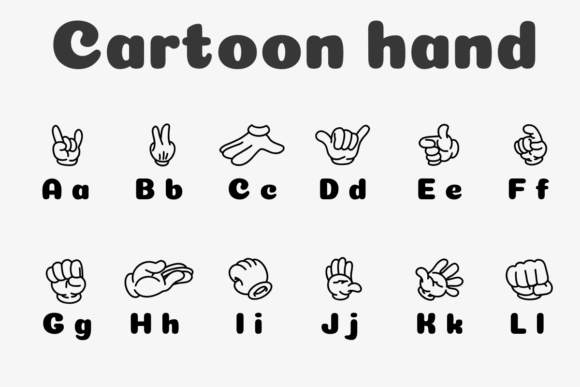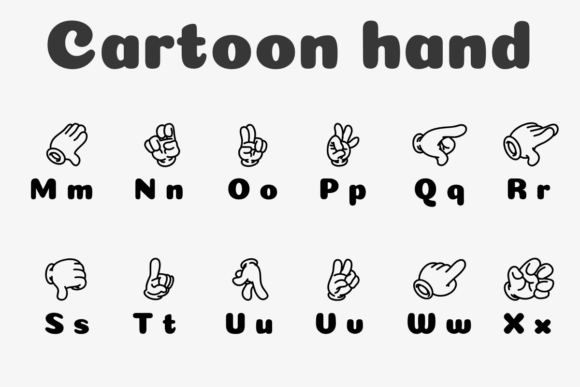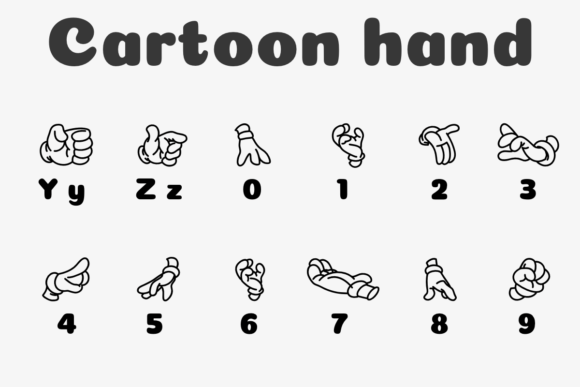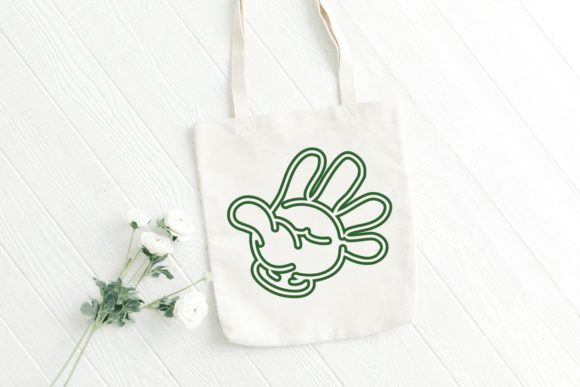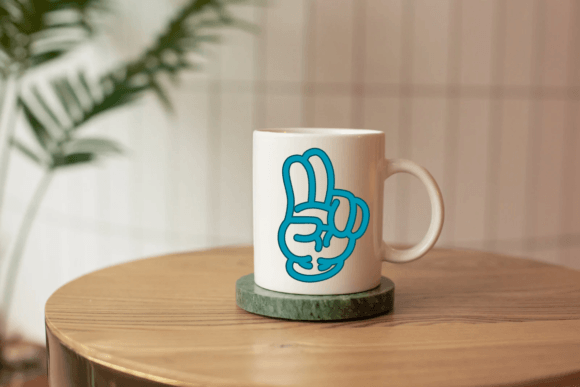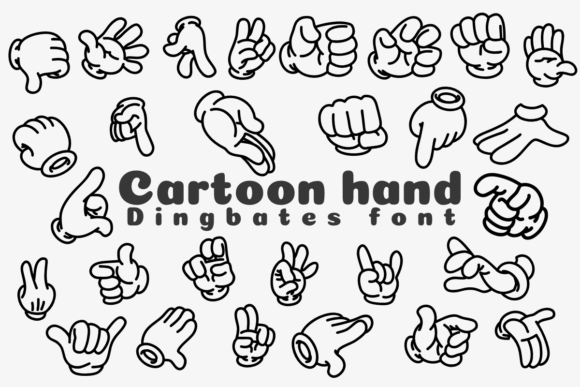
The Ultimate Guide to Cartoon Hand Font: Adding a Playful Touch to Your Designs
I’ll never forget the time I was working on a project for a children’s birthday party invitation. I wanted to create something that would make the kids (and parents!) excited, but I was struggling to find the right font. That’s when I stumbled upon the Cartoon Hand font, and it completely transformed my design. In this article, I’ll share my experience with this fun font, its features, and how to use it in various design platforms.
My Honest Review of Cartoon Hand Font
So, what do I love about Cartoon Hand font? Here are a few things:
- ✨ Unique and playful design: Each letter or symbol is a picture of a cartoon hand making different gestures, which adds a quirky touch to any design.
- ✅ Highly versatile: Cartoon Hand font can be used for various design projects, from party invitations to social media graphics.
However, there are a few small quirks to consider:
- 🤔 Limited use cases: While the font is great for playful designs, it may not be suitable for more formal or professional projects.
- ⚠️ Can be overwhelming: If not used thoughtfully, the font can be overwhelming or distracting.
The Backstory of Cartoon Hand Font
The creator of Cartoon Hand font, a freelance designer named Emma, was inspired by her love of cartoons and playful design. She wanted to create a font that would bring a smile to people’s faces and add a touch of whimsy to their designs. With Cartoon Hand font, Emma aimed to make design more approachable and fun.
| Font Name | Cartoon Hand Font |
| Author | Chonada |
| What type of designs is Cartoon Hand font best suited for? | Cartoon Hand font is perfect for playful designs, such as party invitations, social media graphics, and children’s books. |
| Is Cartoon Hand font available in different languages? | Cartoon Hand font may not be available in all languages, but it can be used with many languages that support the Latin alphabet. |